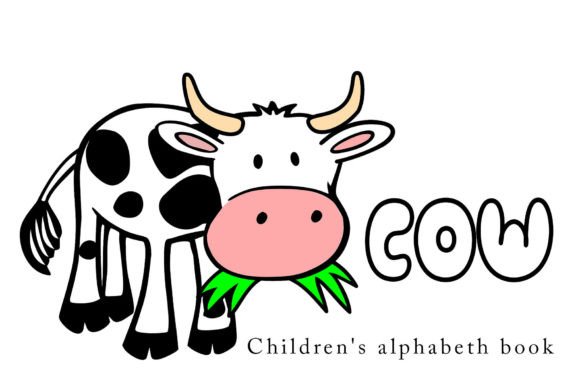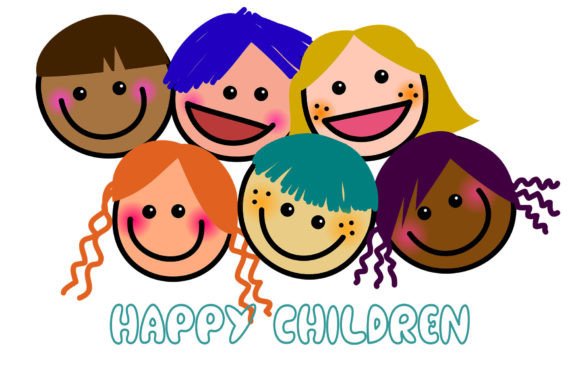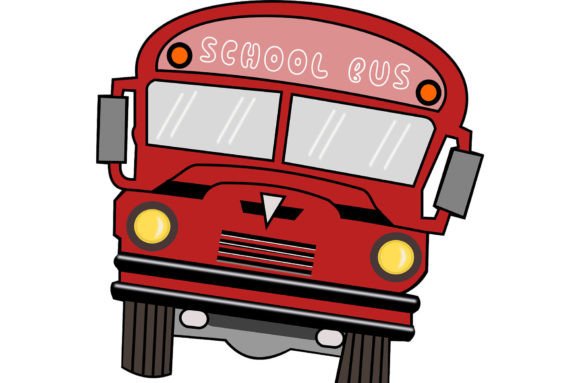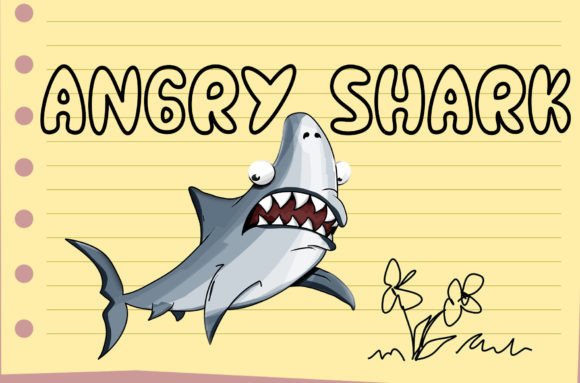
The Perfect Font for a Whimsical Touch
Have you ever been brainstorming design ideas and suddenly, a burst of creativity hits you? Maybe it’s the memory of your child’s birthday party, or a childhood favorite book cover that sparks your imagination. Whatever it is, the key to unlocking your creative potential lies in the perfect combination of elements – and that’s where the right font comes in.
Enter the Bubble Font, a fun and playful retro style display font that’s sure to add a whimsical touch to any design. Whether you’re creating birthday invitations, book covers, or children’s themed banners, this font is the perfect companion to bring your ideas to life. As a designer, you’ll appreciate the versatility and charm that the Bubble Font brings to your projects, making it a valuable addition to your design toolkit.
Bubble Font Key Features
- Unique Characteristics: The font features a distinctive bubble-like shape, with each letter and symbol designed to resemble a rounded, inflated bubble.
- Kerning and Ligatures: The font includes advanced kerning and ligature features, ensuring smooth and elegant typography in both body text and display settings.
Bubble Font Review
I recently had the chance to work with the “Bubble Font” and I have to say it’s an interesting addition to my design arsenal. ✨ One of the things that stands out is the font’s playful and whimsical nature. It’s perfect for projects that need a bit of fun and personality.
Some of the key strengths of the Bubble Font include:
- ✨ Unique aesthetic: The font’s bubble-like shapes and rounded edges make it instantly recognizable.
- ✨ Versatility: It can be used for a wide range of projects, from children’s books to branding and advertising.
- ✨ Customizable: The font can be easily customized to fit your specific design needs.
- ⚠️ Limited legibility: At smaller font sizes, the Bubble Font can be difficult to read.
- ⚠️ Overuse: The font’s playful nature can quickly become overwhelming if overused.
Overall, I think the Bubble Font is a great addition to any designer’s toolkit. While it may have some limitations, its unique aesthetic and versatility make it a valuable asset for the right projects.
Some tips for getting the most out of the Bubble Font include:
- Using it for social media posts and flyers to create eye-catching headlines.
- Applying it to illustrations and graphics to add a playful touch.
- Using it in presentations to highlight key points and make them more engaging.